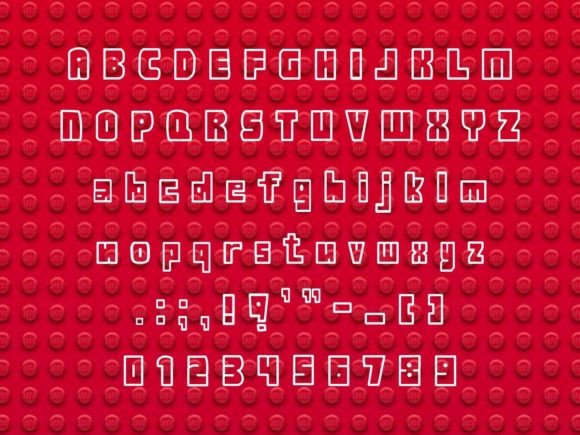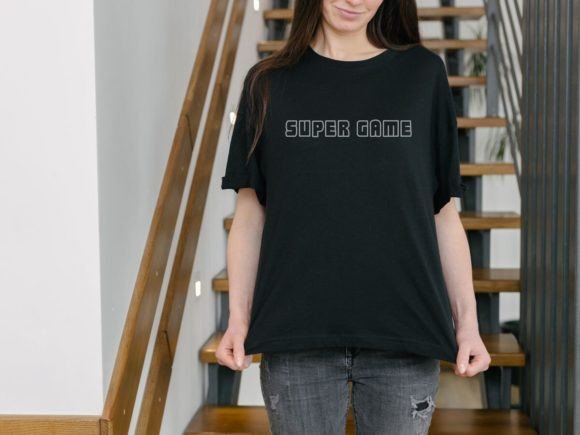
Super Game Font
Add a playful touch to your projects with this unique and charming font. Perfect for digital designs, crafts, posters, and more, this font will make your creations stand out from the crowd.
🔹 Handwritten Style: Each letter is carefully crafted to resemble the playful look of Lego bricks.
🔹 Versatile Usage: Ideal for digital designs, print materials, branding, and more.